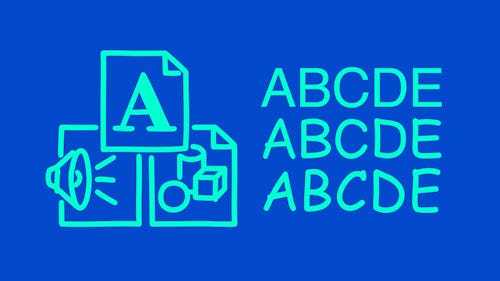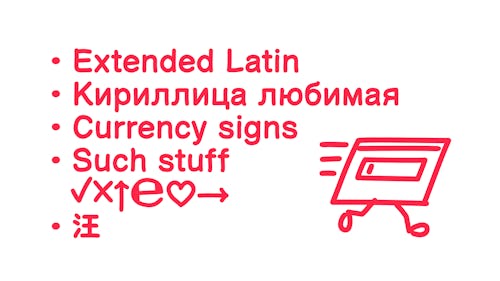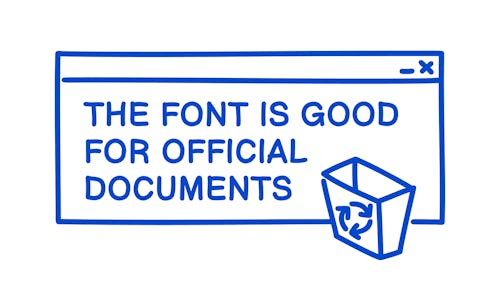
Comic Helvetic is an unholy combination of two iconic fonts
I associate Helvetica with a certain sense of order — refinement, that with overuse, becomes lazy shorthand for being thoughtful. It’s a tasteful business suit, but it’s still a business suit. Comic Sans, on the other hand, just makes me think of clowns.
Comic Helvetic, an experimental font from designer Alexander Pravdin, is the “wearing a business suit with clown shoes” of fonts (via kottke.org).